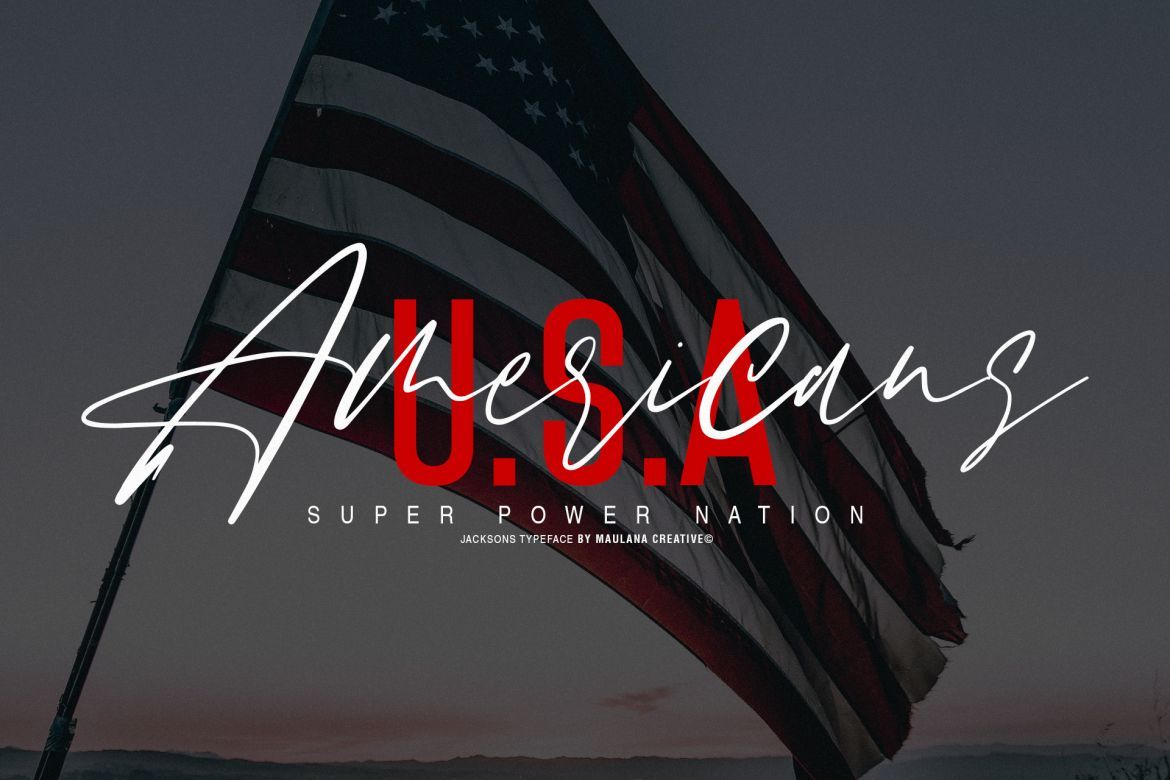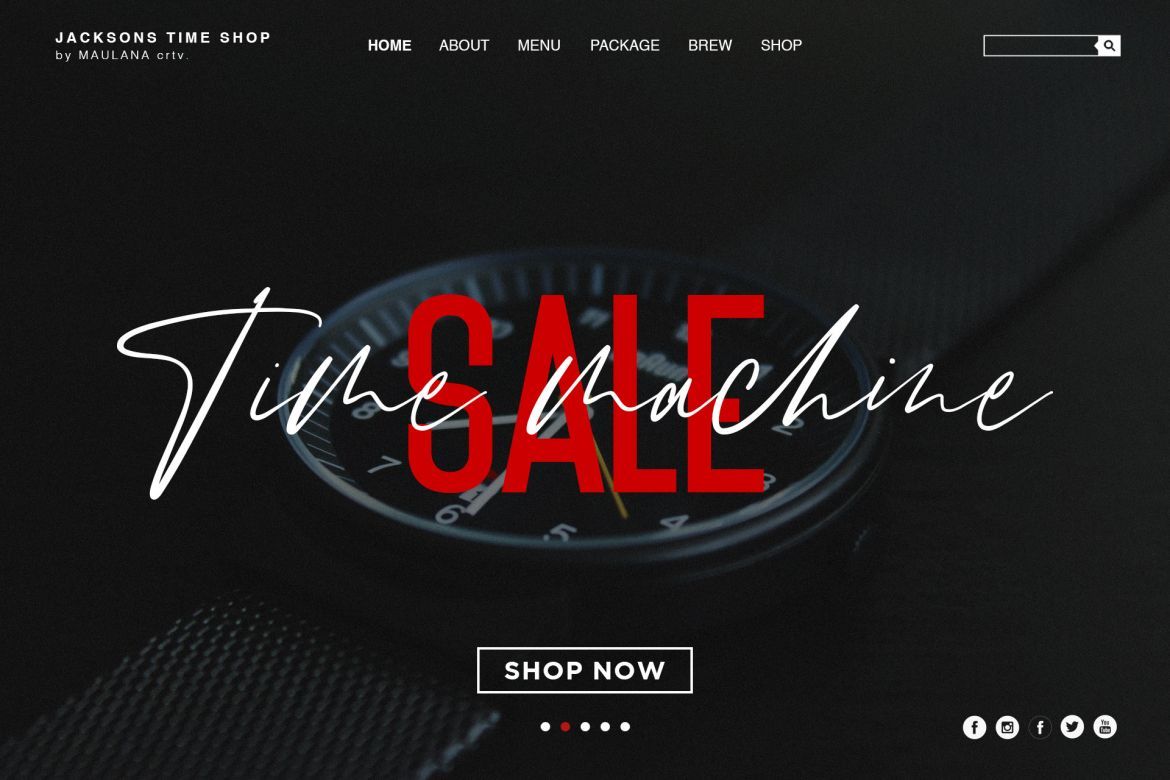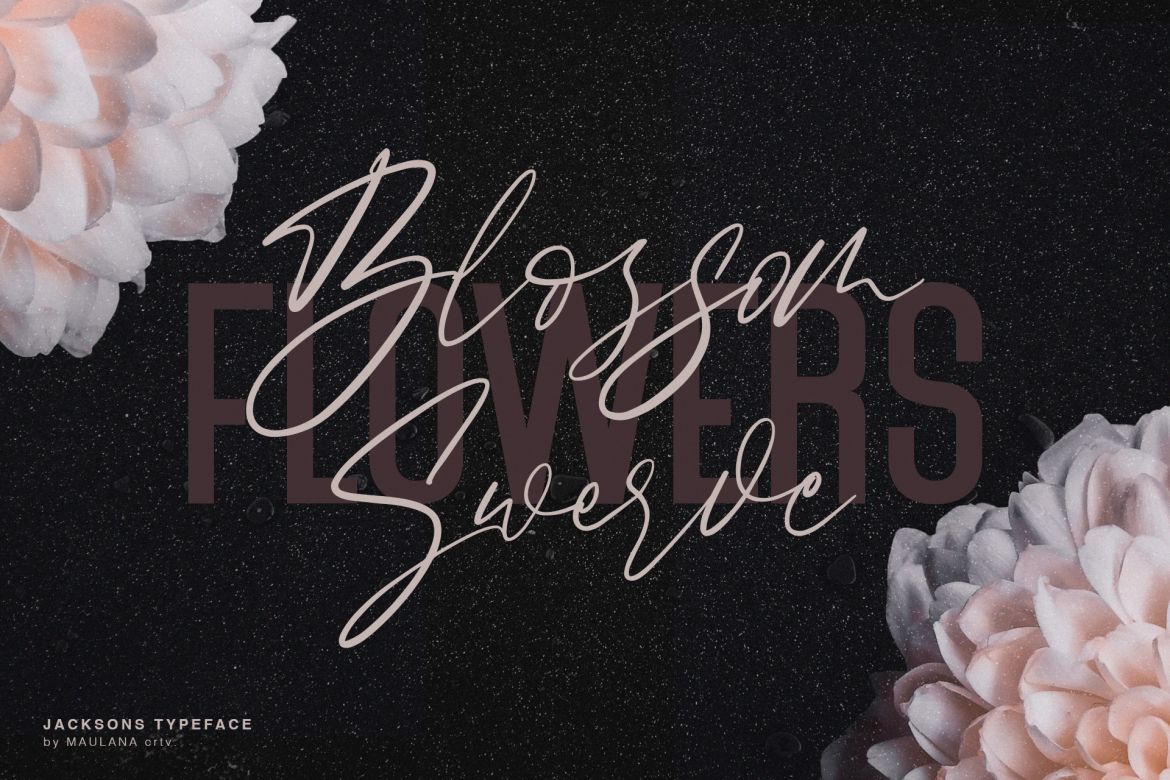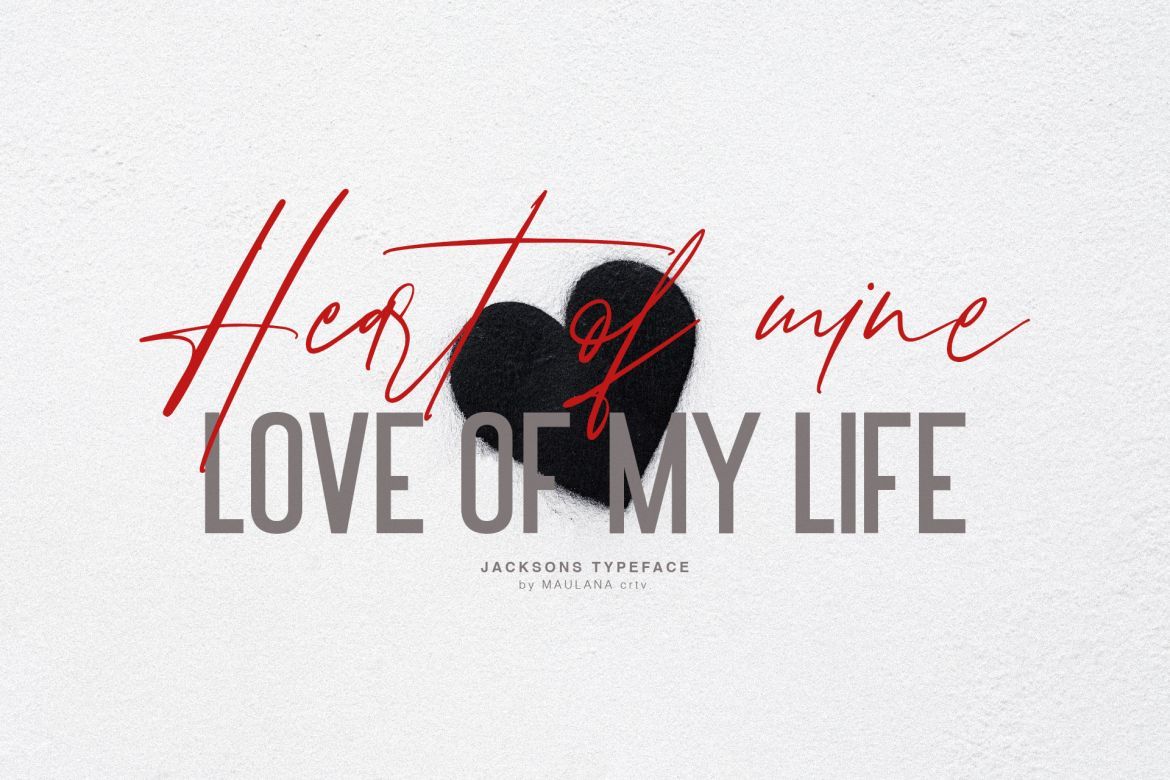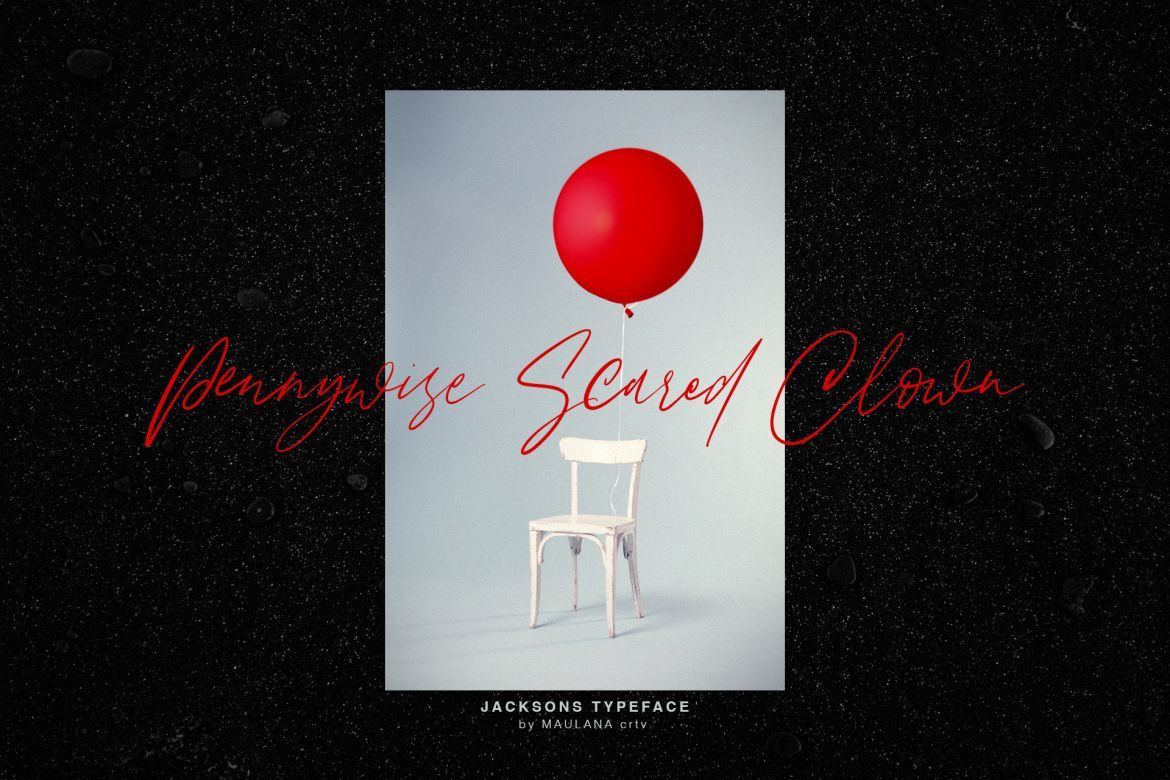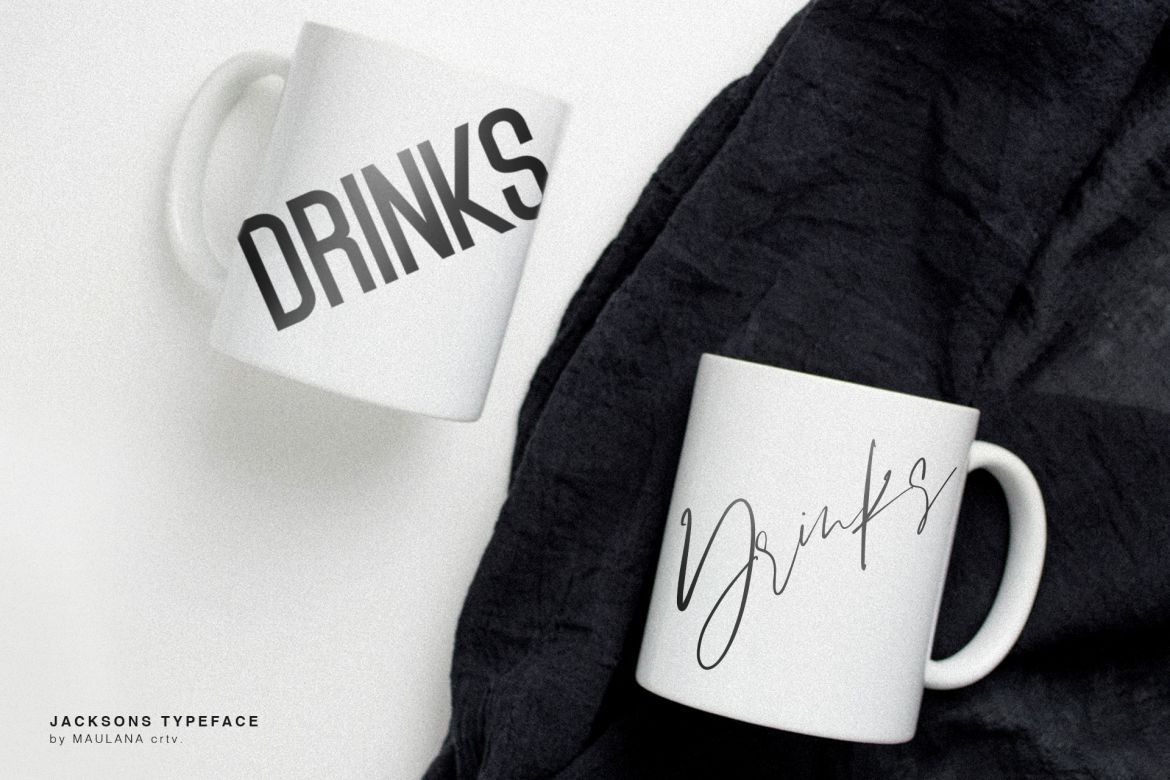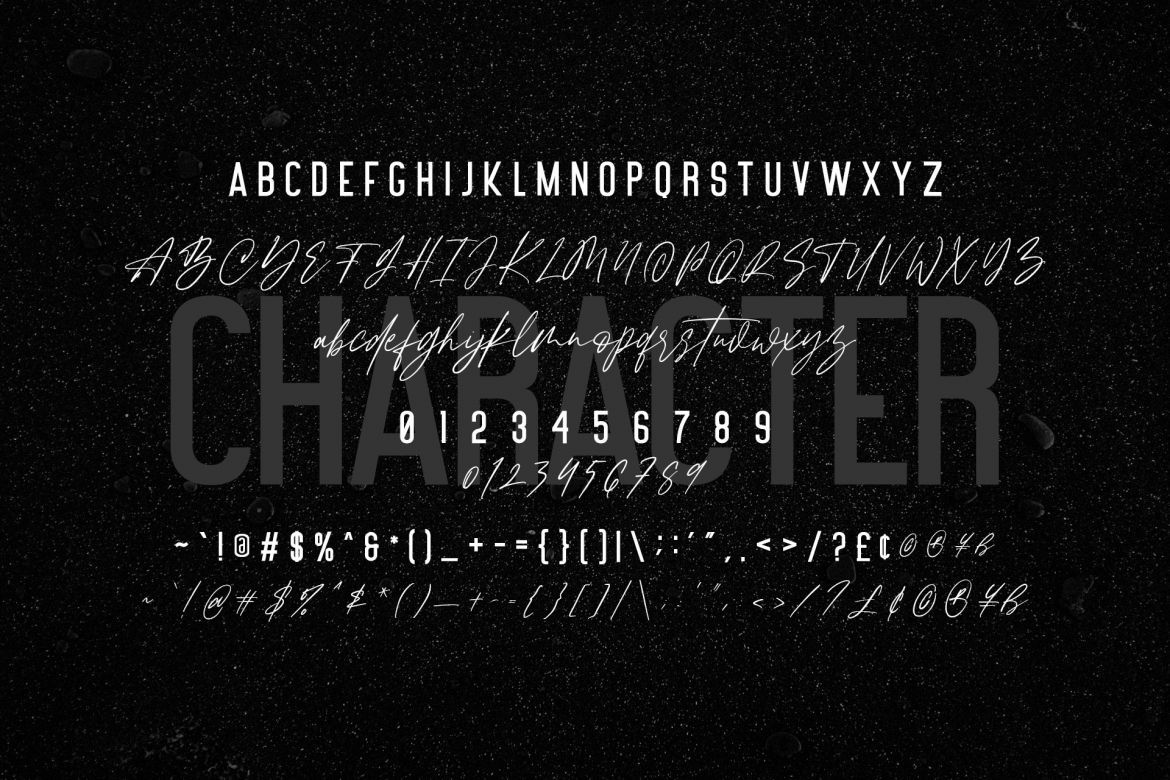
Jacksons Font Duo
Give your designs an authentic handcrafted feel. "Jacksons" is perfectly suited to signature, stationery, logo, typography quotes, magazine or book cover, website header, clothing, branding, packaging design and more.
Font Ligatures: kl ly oo of ee oc yn ion wh ett nl ea fe ss ott ot ls mi mtt is in nd ck ab cc ll mm op pp on ny tt gg kk dd gh ob mn nn ni so ca oy ct ch na be su en by eb und and ve end ex es em you ew ay ou ce ms om se os ing re he or ia we rn ow at att et utt